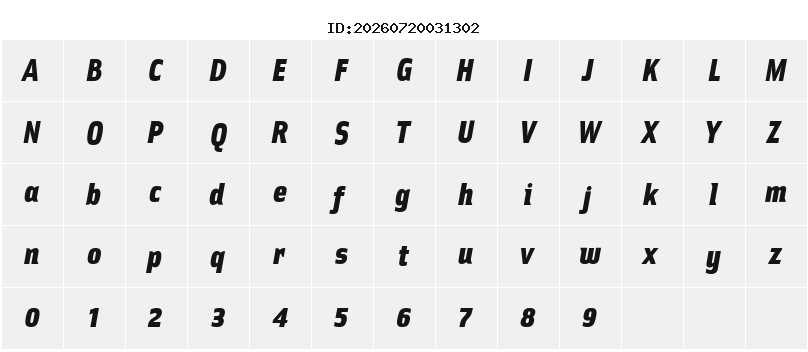
• Font Name: Ellipsoideogram
Ellipsoideogram.ttf is a modern, elegant sans-serif font designed for ultimate readability and visual harmony. Perfect for branding, headlines, web design, and print materials.